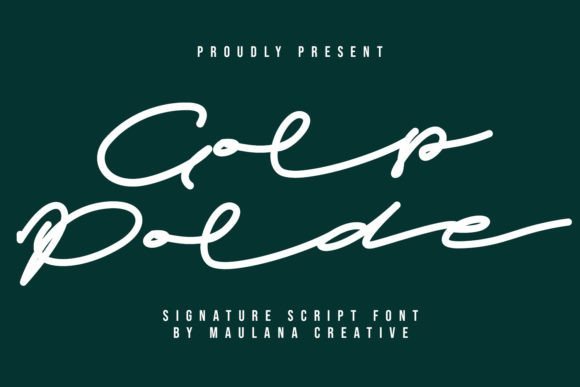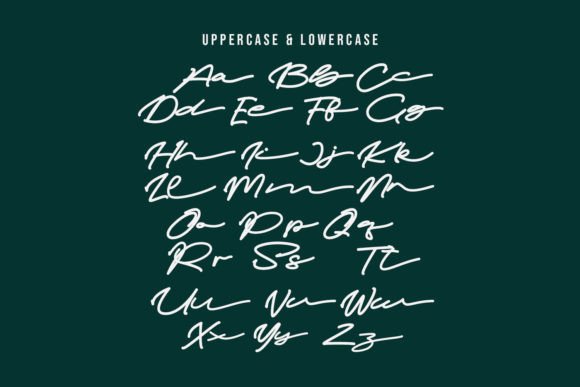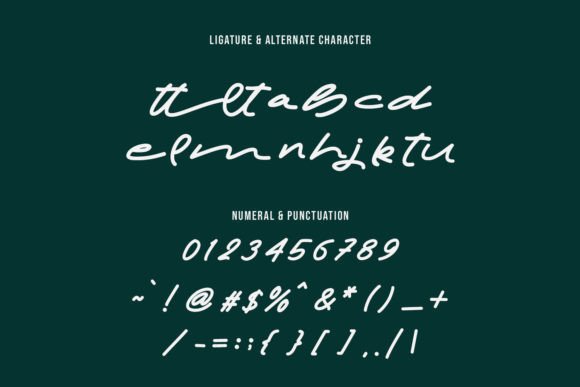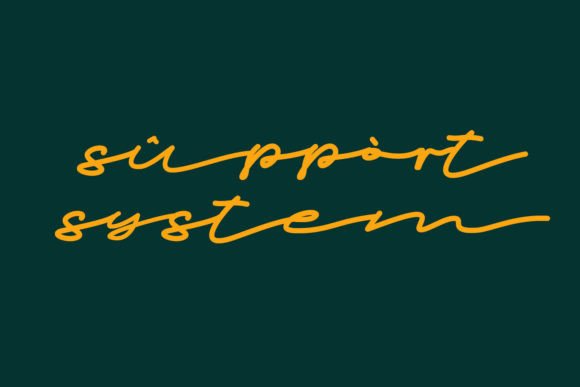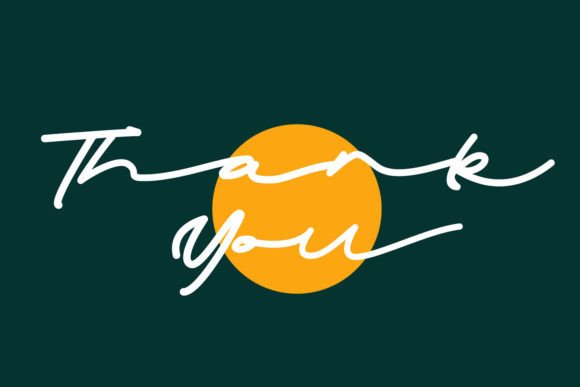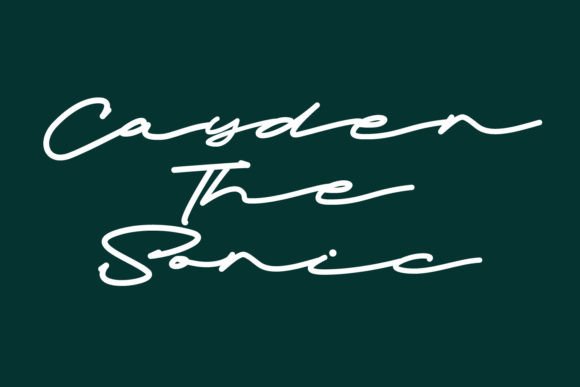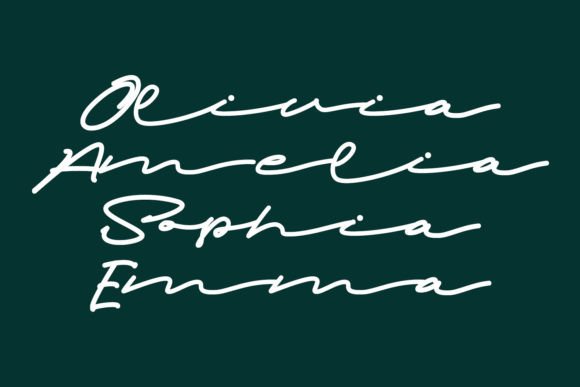
Unlock Your Creativity with the Magical Golp Polde Font
This enchanting script font is designed to bring a touch of elegance to any design project. Whether you’re crafting a beautiful Instagram post, creating a custom wedding invitation, or working on a DIY project, Golp Polde Font is the perfect companion to help you turn your ideas into stunning works of art.
For designers, the Golp Polde Font is a valuable addition to their toolkit, offering a unique blend of sophistication and playfulness that’s sure to set their designs apart from the crowd.
Golp Polde Font Key Features
- Unique Characteristics: Golp Polde Font features a unique blend of traditional and modern design elements, with intricate details and ornaments that add a touch of elegance to any text.
- Font Weight: The font comes in multiple weights, including Light, Regular, Bold, and Extra Bold, allowing for flexibility in typography and design.
Golp Polde Font Review
Golp Polde Font is an interesting font that I had the chance to work with. Overall, it’s a decent addition to any design project. Here’s what I think:
- ✨ The font has a unique and modern feel to it, which can be a great asset for designers looking to add some flair to their work.
- ✨ The font is highly legible, even at smaller font sizes, which makes it suitable for a variety of applications.
- ✨ The font has a good range of weights and styles, which gives designers a lot of flexibility when it comes to choosing the right look and feel for their project.
- ⚠️ The font may not be the best choice for projects that require a more traditional or classic look, as it has a distinctly modern feel to it.
- ⚠️ Some users may find the font’s unique characteristics a bit too unusual or jarring, which could be a problem in certain contexts.
Overall, I think Golp Polde Font is a solid choice for designers who are looking for a modern and legible font. While it may not be the best fit for every project, it’s definitely worth considering for the right kind of design work.
Golp Polde Font is ideal for creative projects that require a unique and eye-catching font. Some common use cases include:
- Event branding and marketing materials.
- Graphic design projects that require a bold and playful font.
The Golp Polde Font supports advanced features such as ligatures, alternates, and swashes. To access these features, you will need to use a font editor or a design application that supports OpenType font technology. Some popular font editors include FontForge and Glyphs. In these applications, you can access the font’s glyphs and features by using the font’s menu or by typing keyboard shortcuts.